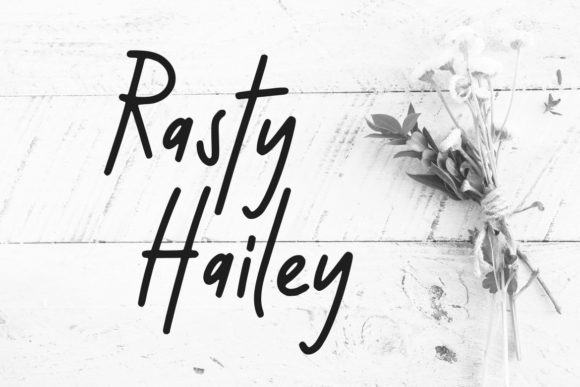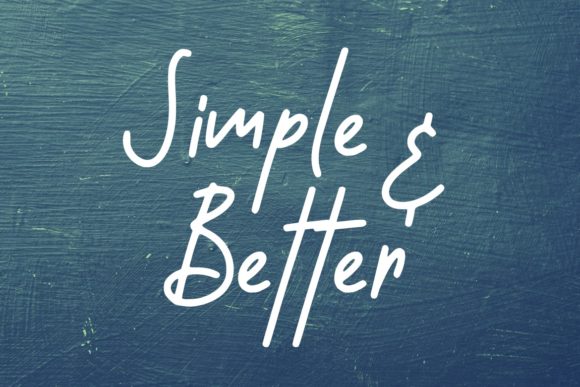
Misty Whisper Font
About Misty Whisper Font
Misty Whisper is an elegant handwritten font, perfectly made for a variety of projects such as logos, posters, wedding invitations and more.
Give your next design a stylish look with this playful font.